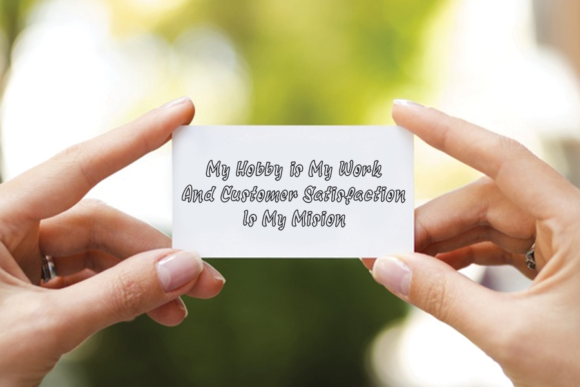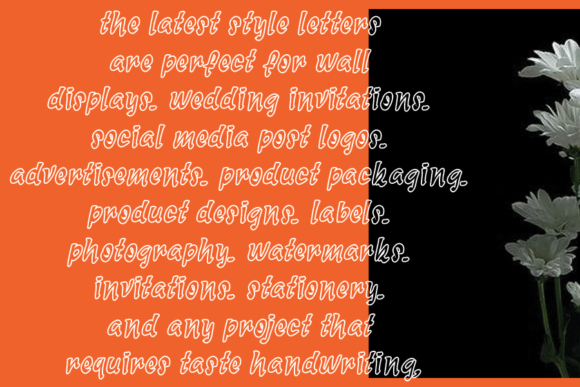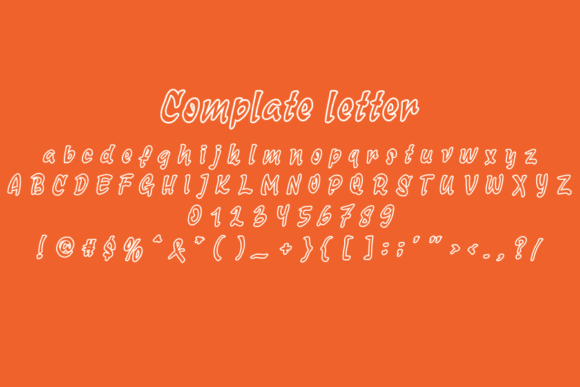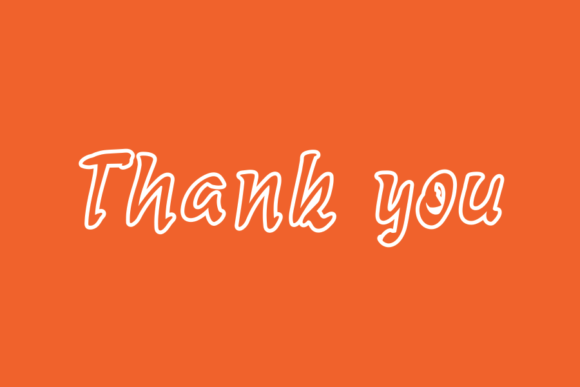
Introducing Hard Work Font: Elevate Your Designs with Elegance and Versatility
In the world of typography, few fonts manage to capture the essence of elegance and versatility as effectively as the Hard Work Font. This beautiful, flowing display font is designed to add a touch of sophistication and charm to any design project. Whether you’re a seasoned designer or a crafting enthusiast, Hard Work Font is an excellent addition to your toolkit, offering endless possibilities for creating stunning visual content.
The Allure of Hard Work Font
Hard Work Font stands out with its incredibly versatile style, making it perfect for a wide range of applications. From wedding invitations and stationary art to social media posts and more, this font can adapt to any design need. Its flowing and lovely display style is sure to captivate your audience, adding an element of beauty and grace to your creations.
Key Features of Hard Work Font
- Versatility: Hard Work Font is designed to be versatile, allowing you to use it across various design projects. Its adaptability makes it a valuable asset for designers and crafters who work on diverse projects.
- Elegant Style: The font boasts an elegant, flowing style that can add a touch of sophistication to any design. Its beautiful curves and lines make it perfect for creating visually appealing content.
- Easy to Read: Despite its elegant and flowing nature, Hard Work Font remains easy to read, ensuring that your message is communicated effectively to your audience.
- Highly Customizable: With Hard Work Font, you have the flexibility to experiment with different sizes, colors, and styles, allowing you to tailor your designs to your specific needs.
Applications of Hard Work Font
The applications of Hard Work Font are vast and varied. Here are a few ideas to get you started:
- Wedding Invitations: Create gorgeous wedding invitations that set the tone for a beautiful and memorable event. The elegant style of Hard Work Font is perfect for wedding designs, adding a touch of romance and sophistication.
- Stationary Art: Elevate your stationary art with Hard Work Font, creating beautiful and eye-catching designs that are sure to impress. From greeting cards to letterheads, this font can add a touch of elegance to any stationary piece.
- Social Media Posts: Use Hard Work Font to create stunning social media posts that stand out in crowded feeds. Its versatility and elegance make it perfect for creating engaging and visually appealing content.
- Branding and Packaging: Hard Work Font can also be used in branding and packaging designs, adding a touch of sophistication and elegance to your brand’s visual identity.
Tips for Using Hard Work Font Effectively
To get the most out of Hard Work Font, consider the following tips:
- Pair with Complementary Fonts: Experiment with pairing Hard Work Font with complementary fonts to create visually appealing contrast and hierarchy in your designs.
- Play with Colors and Sizes: Don’t be afraid to experiment with different colors and sizes to add depth and interest to your designs.
- Use for Headings and Titles: Hard Work Font is perfect for headings and titles, adding a touch of elegance and sophistication to your designs.
Hard Work Font is a beautiful and versatile display font that can elevate your designs to new heights. Its elegant and flowing style makes it perfect for a wide range of applications, from wedding invitations and stationary art to social media posts and more. With its highly customizable nature and ease of use, Hard Work Font is an excellent addition to any designer’s or crafter’s toolkit. So why wait? Fall in love with Hard Work Font and start creating stunning designs today!